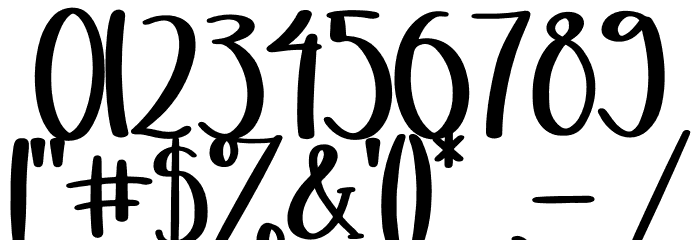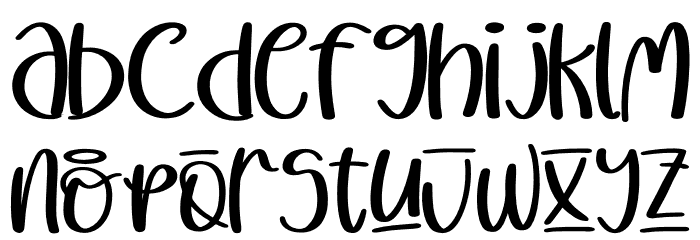
Cutie Delina Font
Cutie Delina Description
This playful and whimsical font features a handwritten style with smooth, flowing curves and a casual, friendly appearance. The letters are slightly elongated with a consistent stroke width, giving it a uniform look while maintaining a lively and dynamic feel. The uppercase and lowercase letters are distinct yet harmoniously balanced, making it versatile for various design needs. The numbers and special characters are crafted with the same playful spirit, ensuring consistency across all elements. This font is perfect for projects that require a touch of personality and charm.
| Proposed Projects | Ideal for greeting cards, children's books, playful branding, and social media graphics. |